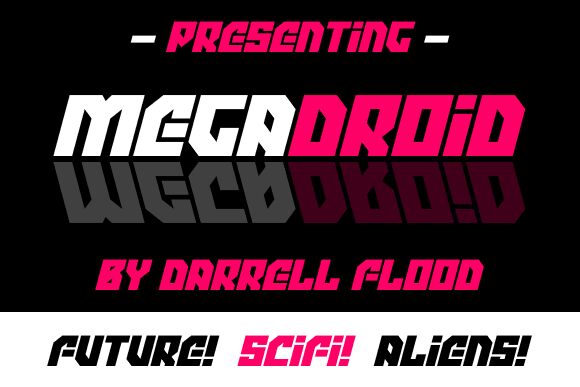
Megadroid Italic
Megadroid, a bold and futuristic display font, exudes a striking aesthetic that commands attention. Designed by Hawtpixel, this font's distinctive italic style and heavy weight convey a sense of power and technological prowess.
The angular, geometric letterforms evoke a sleek, modern vibe, making Megadroid an ideal choice for sci-fi, gaming, or high-tech branding applications. Its bold presence and futuristic flair lend themselves well to attention-grabbing headlines, logos, and product packaging.
Megadroid's versatility shines through, seamlessly transitioning from digital interfaces to print media, where its strong visual impact can truly shine.